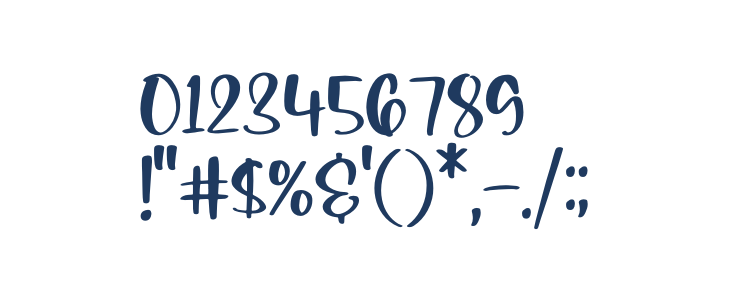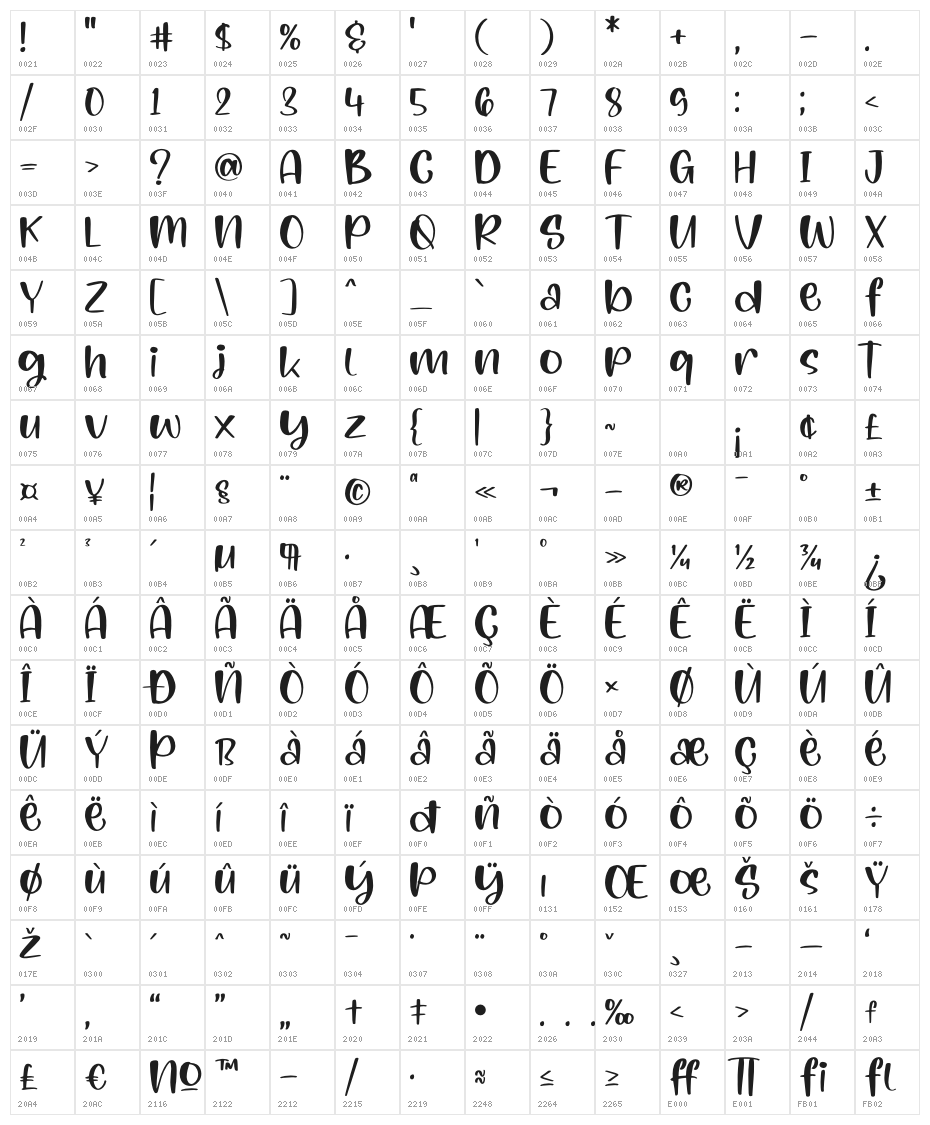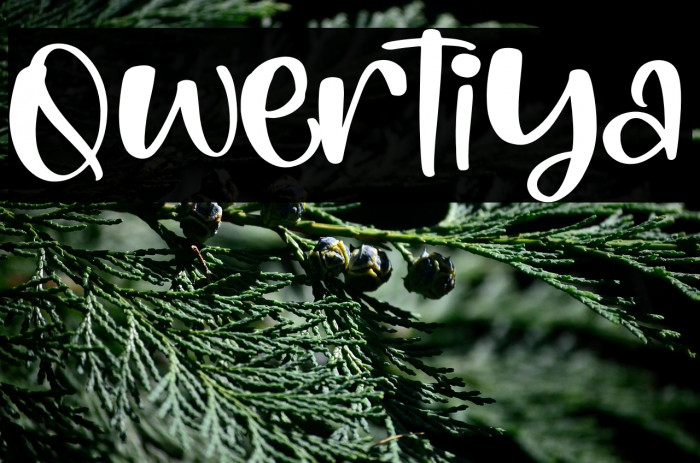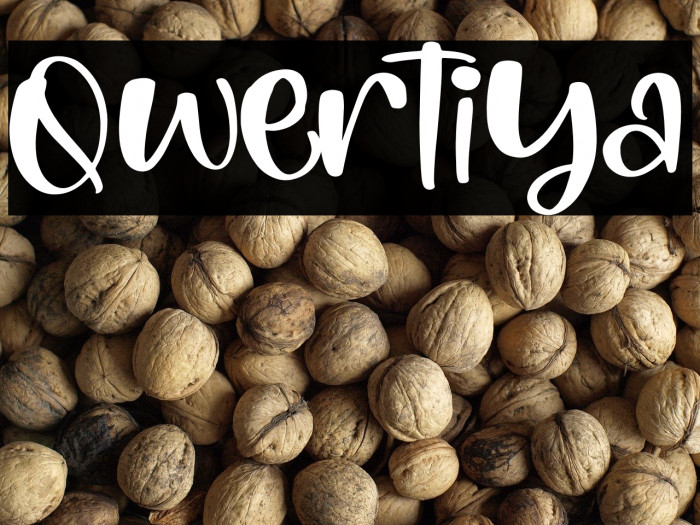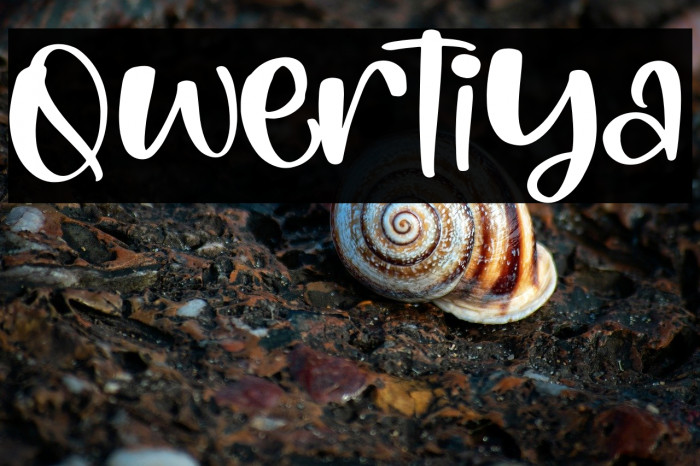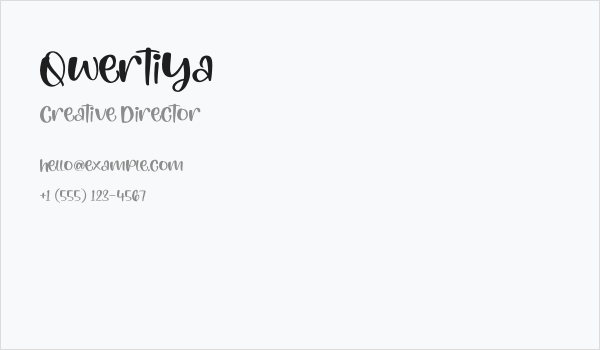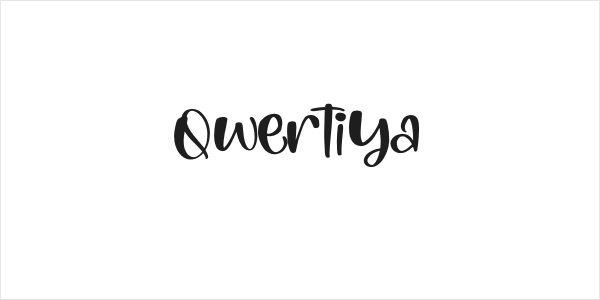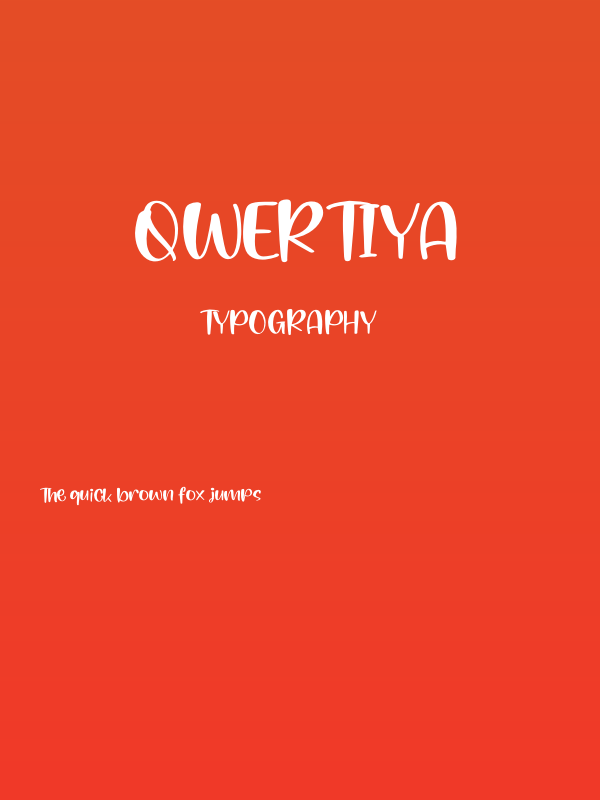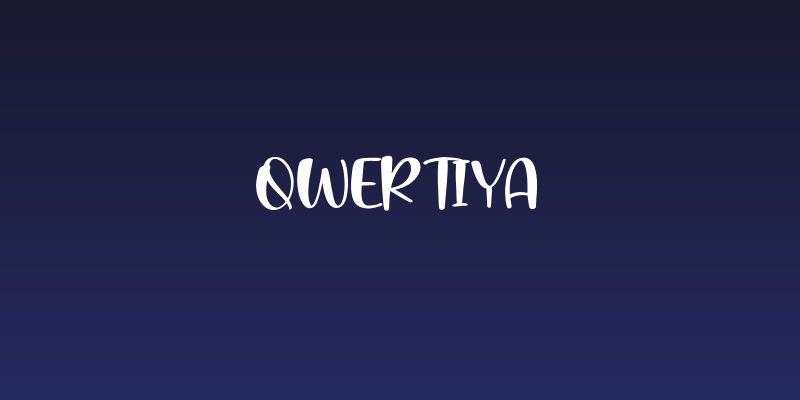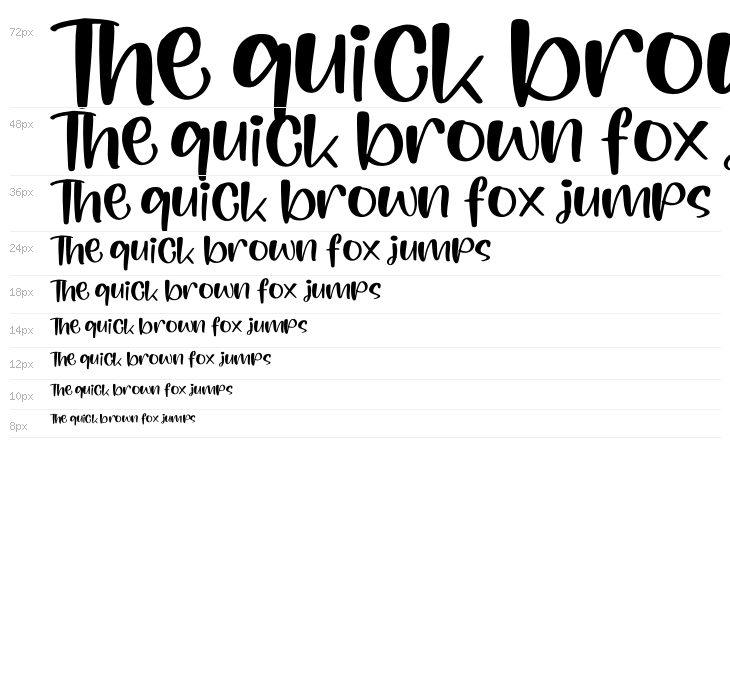
Qwertiya Font
Qwertiya Description
This font features a playful and energetic script style with bold, rounded strokes that give it a lively and friendly appearance. The uppercase and lowercase letters are designed with a consistent flow, creating a sense of movement and rhythm. The characters are slightly slanted, adding to the dynamic feel of the font. The numbers and special characters maintain the same playful aesthetic, making them suitable for a variety of creative applications. The overall design is modern and approachable, making it ideal for projects that require a personal touch.
| Proposed Projects | Ideal for greeting cards, invitations, posters, and branding projects that require a personal and friendly touch. |